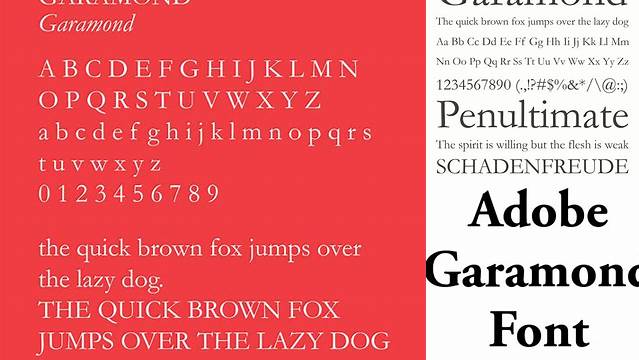
Fonts Like Garamond: Free & Elegant Alternatives
Hey guys! Ever been smitten by the timeless elegance of Garamond but need something that won't cost you a dime? You're in the right place! Garamond, with its classic serifs and graceful curves, is a font that screams sophistication and readability. But let's face it, sometimes free alternatives are a must. So, we're diving deep into the world of free fonts that capture the essence of Garamond, offering similar aesthetics without breaking the bank. Whether you're working on a website, a book, or any design project, finding the right font is crucial. And the best part? You don't have to compromise on quality or style just because it's free. Let's explore some fantastic options that will give you that Garamond vibe!
Garamond Alternatives: An Overview
Before we jump into specifics, let's talk about what makes a good Garamond alternative. We're looking for fonts with similar characteristics: elegant serifs, a classic feel, and excellent readability. The goal is to find fonts that can step in and deliver the same level of sophistication as Garamond, but without the price tag. So, what are the key things to consider when searching for these alternatives? Well, we'll be focusing on fonts that share Garamond's refined letterforms, balanced proportions, and overall timeless appeal. This overview will guide you through the essential elements that define a Garamond-esque font, ensuring you know exactly what to look for in your quest for the perfect free substitute.
2. URW Garamond: A Close Match
If you're after a super close match, URW Garamond is a fantastic option. This font is often considered one of the best free fonts that mirrors the original Garamond's elegance and readability. URW Garamond maintains the classic serif details and balanced proportions that make Garamond so beloved. It's a versatile choice for both body text and headlines, making it a solid pick for various design projects. Whether you're working on a book, a website, or a presentation, URW Garamond will bring that touch of timeless sophistication you're after. The best part? It's freely available, so you can start using it right away without any financial commitment. It's truly a free font win!
3. EB Garamond: An Open Source Gem
EB Garamond is another stellar free font in the Garamond family. This open-source project aims to create a faithful digital revival of Claude Garamont’s original typeface. What sets EB Garamond apart is its meticulous attention to detail and historical accuracy. The font features beautiful serifs and a refined letter design, making it a perfect choice for projects that need a touch of classic elegance. Plus, being open-source means it’s constantly being improved and expanded by a community of passionate typographers. If you’re looking for a free font with a rich history and stunning aesthetics, EB Garamond is definitely one to consider. It’s like having a piece of typographic history at your fingertips!
4. Libre Garamond: A Google Fonts Favorite
Libre Garamond is a free font that's part of the Google Fonts library, which means it's super easy to access and use in your web projects. This font is designed to be highly readable and versatile, making it a great choice for both body text and headings. Libre Garamond captures the classic feel of Garamond while also being optimized for screen use. Its balanced letterforms and elegant serifs ensure your text looks polished and professional. And because it's a Google Font, it’s incredibly easy to embed in your website or use in your documents. If you need a reliable and free font that delivers on both style and functionality, Libre Garamond is a winner.
5. Cormorant Garamond: A Modern Interpretation
Cormorant Garamond offers a modern twist on the classic Garamond style. While still maintaining the elegant serifs and timeless feel, Cormorant Garamond has a slightly more contemporary vibe. This free font is available in a variety of weights and styles, giving you plenty of options to play with in your designs. If you're looking for something that feels both classic and fresh, Cormorant Garamond is an excellent choice. It's perfect for projects that need a touch of sophistication with a modern edge. Plus, it’s a free font, so you can experiment without any risk. Give it a try and see how it can elevate your designs!
6. IM Fell Garamond: Historical Charm
IM Fell Garamond is a free font that's steeped in history. It’s based on the types cut by the 17th-century English type designer, John Fell. This font has a distinctive old-style charm, with unique letterforms and a slightly more rustic feel compared to modern Garamond versions. IM Fell Garamond is perfect for projects that call for a vintage or historical touch. Think book designs, invitations, or any project that needs a sense of timeless elegance. Plus, it’s a fantastic free font to add to your collection if you love exploring different typographic styles. It’s like stepping back in time with every character!
7. Crimson Text: A Versatile Serif
Crimson Text, while not a direct Garamond clone, shares many of the same qualities that make Garamond so appealing. This free font is designed for long-form reading, with excellent readability and a classic serif style. Crimson Text has a slightly more robust feel than Garamond, making it a great choice for projects that need a touch of strength and elegance. It’s a versatile option that works well in both print and digital media. If you’re looking for a free font that can handle body text with grace and style, Crimson Text is definitely worth a look. It’s a reliable workhorse that delivers beautiful results.
8. Charis SIL: A Readable Alternative
Charis SIL is another free font that offers excellent readability and a classic serif appearance. While it might not be an exact Garamond replica, it shares the same overall aesthetic and is designed for clear, comfortable reading. Charis SIL is particularly well-suited for long documents and body text, thanks to its balanced letterforms and clean design. If you need a free font that prioritizes readability without sacrificing style, Charis SIL is a solid option. It’s a practical and elegant choice for a wide range of projects.
9. Gentium Plus: A Humanist Serif
Gentium Plus is a free font that falls into the humanist serif category, which means it has a more organic and handwritten feel compared to some of the more formal Garamond alternatives. However, it still retains the classic serif elegance that makes Garamond so appealing. Gentium Plus is designed to support a wide range of languages and scripts, making it a versatile choice for international projects. If you’re looking for a free font with a touch of warmth and personality, Gentium Plus is an excellent option. It’s a friendly and readable choice that adds a unique flair to your designs.
10. Arvo: A Geometric Serif Option
Arvo is a bit of a departure from the traditional Garamond style, as it’s a geometric serif font. However, it’s still a fantastic free font that can bring a touch of elegance and readability to your projects. Arvo has a more modern and structured feel compared to Garamond, with strong, clean lines and a distinctive appearance. It’s a great choice for headlines and display text, where you want to make a statement. If you’re looking for a free font that offers a unique twist on the serif style, Arvo is definitely worth exploring.
11. Designing with Garamond-like Fonts: Best Practices
So, you've got your Garamond-esque free font ready to go – awesome! But how do you make sure you're using it effectively? Designing with classic serif fonts like Garamond requires a bit of finesse. First off, think about your context. These fonts shine in situations where you want to convey elegance, tradition, or sophistication. Think books, invitations, and branding for high-end products. Next, consider readability. While Garamond and its alternatives are generally very readable, it's still important to pay attention to font size and line spacing. You want to make sure your text is easy on the eyes, especially for long-form content. And don't forget about contrast! Pairing your Garamond-like font with a clean, sans-serif font can create a beautiful balance. Let's dive into some best practices to ensure your designs look their absolute best!
12. Pairing Free Garamond Fonts with Other Styles
Font pairing is an art, guys, and when you're working with a classic serif like a Garamond free font, you want to choose partners that complement its elegance. A good rule of thumb is to pair a serif with a sans-serif. For example, try pairing EB Garamond with a clean sans-serif like Open Sans or Lato. This creates a visual contrast that’s pleasing to the eye and ensures readability. You can also pair different weights and styles within the Garamond family itself. Use a bold version for headings and a regular weight for body text to create hierarchy and visual interest. The key is to experiment and see what feels right for your project. Pairing fonts effectively can elevate your design from good to great!
13. Using Garamond Fonts for Body Text
Garamond-style free fonts are fantastic for body text because they’re designed for readability. The elegant serifs help guide the eye across the page, making long passages of text easier to digest. When using these fonts for body text, pay close attention to the font size and line spacing. A slightly larger font size and generous line spacing can make a big difference in readability. Also, consider the overall tone of your content. Garamond is a sophisticated font, so it’s perfect for projects that need a touch of class, like books, articles, or formal documents. Using Garamond fonts for body text is a surefire way to add a touch of elegance to your writing.
14. Garamond Fonts for Headlines and Titles
Garamond-like free fonts aren't just for body text; they can also make stunning headlines and titles. The key is to use them sparingly and with intention. A Garamond headline can convey a sense of authority and sophistication, making it ideal for projects that need to command attention. When using Garamond for headlines, consider using a bolder weight or a slightly larger font size to make it stand out. You can also play with different letter spacing to create a more dramatic effect. Garamond fonts for headlines can add a touch of timeless elegance to your designs, making them truly memorable.
15. The History of Garamond: Understanding Its Roots
To truly appreciate Garamond and its free font alternatives, it’s helpful to know a bit about its history. Garamond is named after Claude Garamond, a 16th-century Parisian type designer. His typefaces were renowned for their elegance and readability, and they became incredibly influential in the world of typography. Garamond’s designs have been revived and adapted many times over the centuries, but the core characteristics – the refined serifs, balanced proportions, and overall classic feel – have remained constant. Understanding the history of Garamond helps you appreciate the timeless quality of this typeface and why it continues to be a popular choice for designers today.
16. Claude Garamond: The Master Type Designer
Claude Garamond was a true master of type design. Born in Paris in the early 16th century, he quickly rose to prominence as one of the leading typefounders of his time. Garamond’s fonts were commissioned by kings and scholars, and they were widely used throughout Europe. His designs were characterized by their elegance, readability, and attention to detail. Claude Garamond set a new standard for typeface design, and his legacy continues to inspire typographers today. When you use a Garamond-style font, you’re connecting to a rich history of typographic excellence.
17. Garamond in Print vs. Digital: Adaptations and Considerations
Garamond was originally designed for print, but it has been adapted for digital use in many ways. When using free Garamond fonts in digital projects, there are a few things to keep in mind. First, ensure the font is optimized for screen readability. Some fonts may look great in print but appear pixelated or blurry on screen. Look for fonts specifically designed for web use, like Libre Garamond or EB Garamond. Also, consider the overall design of your website or app. Garamond can add a touch of elegance to digital interfaces, but it’s important to balance it with modern design elements. The key is to adapt the classic Garamond style to the digital world while maintaining its timeless appeal.
18. The Enduring Appeal of Garamond: Why It Remains Popular
Why does Garamond continue to be a beloved typeface centuries after its creation? The enduring appeal of Garamond lies in its timeless elegance and readability. It’s a font that conveys a sense of sophistication and authority without feeling stuffy or outdated. Garamond is versatile enough to work in a wide range of projects, from books and magazines to websites and branding materials. Its classic serif design is easy on the eyes, making it a great choice for long-form reading. The enduring appeal of Garamond is a testament to its exceptional design and the skill of its creator, Claude Garamond.
19. Exploring Different Weights and Styles in Garamond Fonts
Garamond-style free fonts often come in a variety of weights and styles, giving you plenty of options to play with in your designs. Different weights, like light, regular, and bold, can create visual hierarchy and add emphasis to your text. Italics can add a touch of elegance and can be used to highlight specific words or phrases. Experimenting with different weights and styles can help you create more dynamic and engaging designs. For example, you might use a bold weight for headlines and a regular weight for body text. Exploring different weights can add depth and visual interest to your typography.
20. Kerning and Leading: Fine-Tuning Your Garamond Typography
Kerning and leading are essential aspects of typography that can significantly impact the readability and visual appeal of your text. Kerning refers to the spacing between individual letters, while leading refers to the vertical space between lines of text. When working with Garamond-style free fonts, it’s important to pay close attention to these details. Proper kerning ensures that letters don’t appear too crowded or too far apart, while adequate leading makes your text easier to read. Fine-tuning these elements can elevate your typography from good to excellent. Mastering kerning and leading is a key skill for any designer working with classic serif fonts.
21. Garamond and Branding: Creating a Timeless Identity
Garamond is an excellent choice for branding projects that aim to convey a sense of tradition, elegance, and sophistication. Its classic serif design lends itself well to brands in industries like publishing, fashion, and luxury goods. When using Garamond in branding, it’s important to consider the overall brand identity. Garamond works best when paired with a clean, modern design aesthetic. It can add a touch of timelessness to your brand, helping you create a lasting impression. Garamond and branding are a perfect match for companies looking to project a refined and trustworthy image.
22. Licensing Considerations for Free Garamond Fonts
Even though these fonts are free, it's crucial to understand the licensing terms before using them in your projects. Most free Garamond fonts come with licenses that allow you to use them for personal and commercial projects, but it's always best to double-check. Some licenses may have restrictions on how you can modify or redistribute the font. For example, open-source fonts like EB Garamond typically have very permissive licenses, while others may have more specific terms. Understanding licensing considerations ensures you're using the fonts legally and ethically.
23. Resources for Finding More Free Garamond Alternatives
Looking for even more free Garamond fonts? There are tons of resources out there! Websites like Google Fonts, Font Squirrel, and DaFont offer a vast selection of free typefaces, including many Garamond-style options. You can also find curated lists and articles online that highlight the best free fonts for various purposes. Don't be afraid to explore and experiment with different fonts until you find the perfect match for your project. Resources for finding free fonts are abundant, so get out there and discover your new favorite typeface!
24. Garamond vs. Other Serif Fonts: Distinguishing Features
Garamond is a classic serif font, but it’s not the only one out there. So, what sets it apart from other serif typefaces like Times New Roman or Baskerville? Garamond is known for its elegant and refined letterforms, with a slightly more humanist feel compared to some of the more geometric serifs. It also has a distinctive lowercase